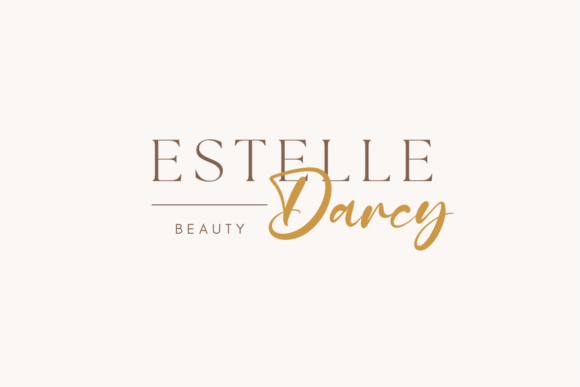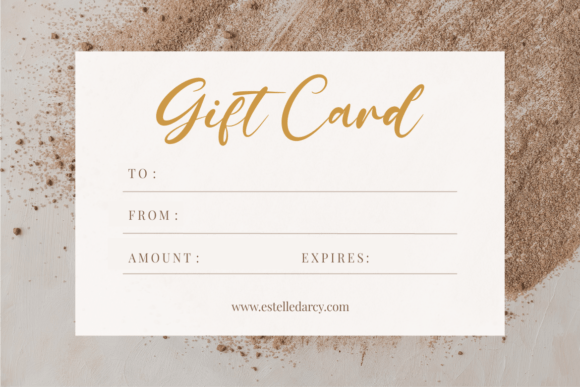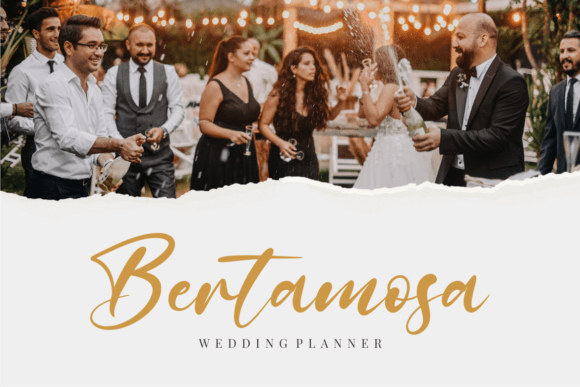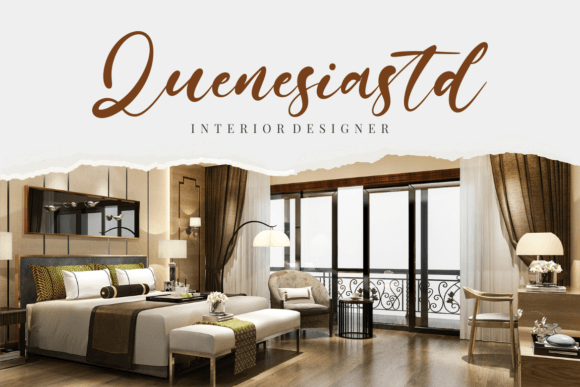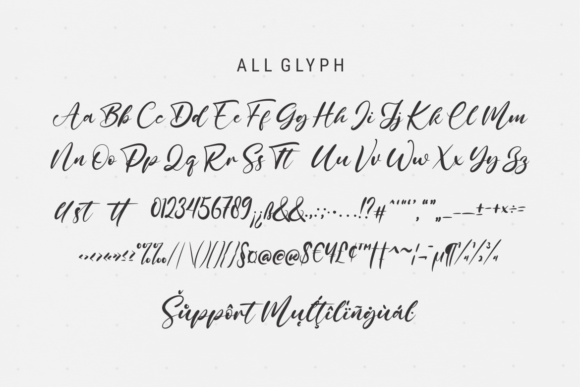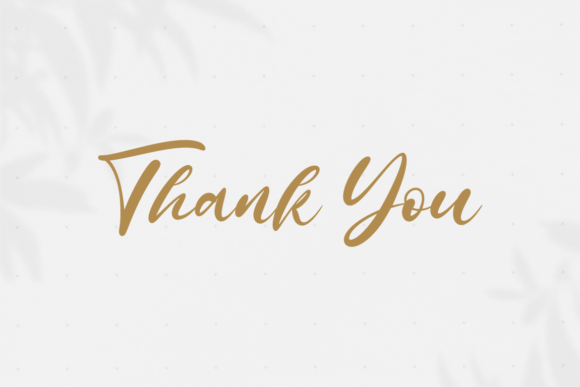
Introduction to Lovelista Font
Have you ever found yourself in the midst of a creative frenzy, surrounded by scraps of paper, colorful pens, and endless ideas? That’s exactly where I was when I stumbled upon the Lovelista Font – a delicate, simple, and stylish handwritten font that has since become my go-to design resource.
As I began to experiment with Lovelista Font, I realized its versatility and high quality made it perfect for a wide range of creative projects. Whether I’m crafting a romantic greeting card or designing a headline for a blog post, Lovelista Font adds a touch of elegance and sophistication to my work. With its transparent background and clean lines, it’s a valuable asset for designers looking to add a personal touch to their designs.
Key Features of Lovelista Font
- High-quality font with a unique, modern design suitable for creative projects.
- Transparent background, making it ideal for use on various backgrounds and design elements.
- Designed with a resolution of 300 DPI, ensuring crisp and clear text display in high-resolution designs.
- Supports multiple languages, making it a versatile design resource for international creative projects.
- Font size ranges from 8 to 72 points, allowing for flexibility in your design layout and creative project requirements.
Honest Review: Lovelista Font
I recently came across the Lovelista Font and was impressed by its unique design. As a designer, I’m always on the lookout for high quality fonts to use in my creative projects, and Lovelista Font definitely fits the bill.
- ✨ The font is highly legible, making it perfect for body text in designs.
- ✨ The transparent background allows for easy layering and customization.
- ⚠️ The font may not be suitable for titles or headings due to its relatively small size and delicate lines.
- ⚠️ Some users may find the font too cursive or script-like, which may not appeal to those who prefer more traditional fonts.
Overall, I’m impressed by the Lovelista Font and would recommend it to designers looking for a unique and high quality font for their creative projects. With a little creativity, this font can be used to add a touch of elegance and sophistication to any design.
How to Use Lovelista Font
Tips for Getting the Most Out of Lovelista Font
Use the Lovelista Font on a transparent background to create a clean and modern design. Experiment with different font sizes and styles to achieve the desired effect.
The Lovelista Font is ideal for creative projects, such as wedding invitations, social media graphics, and blog posts. Its high-quality design and transparent background make it a versatile design resource for various applications.